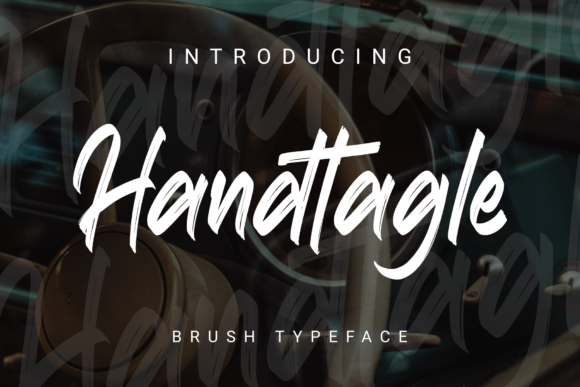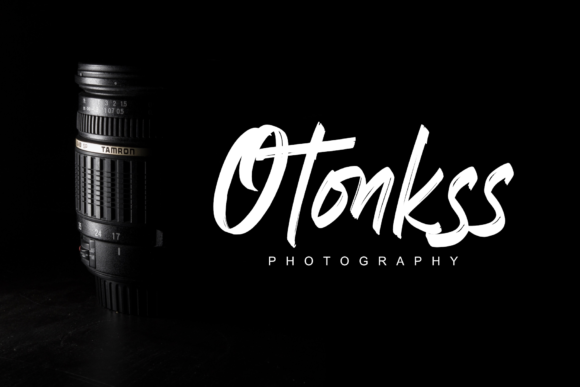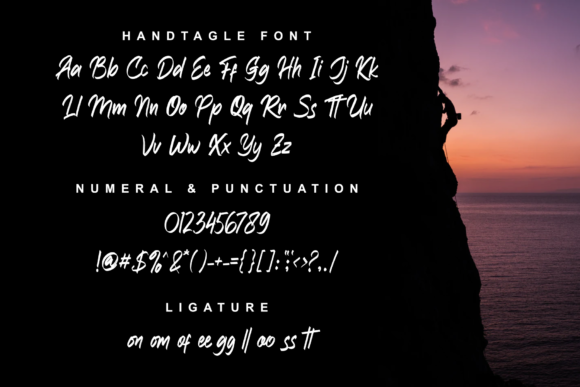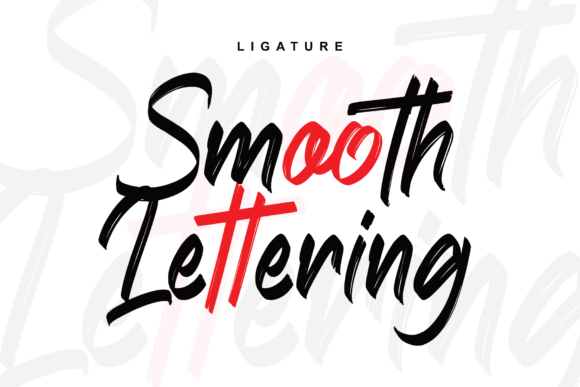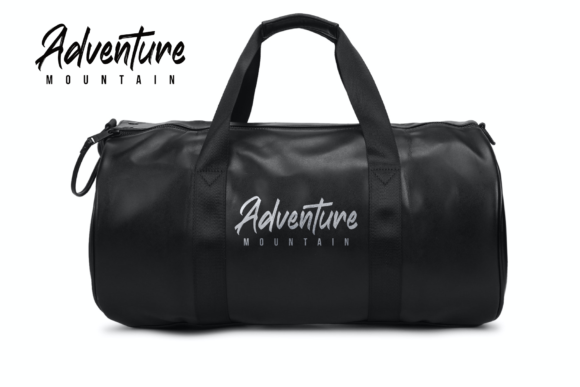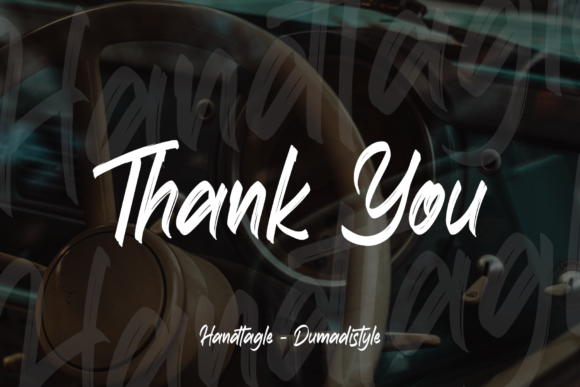
Handtagle Font
About Handtagle Font
Introducing “Handtagle,” a cool and brushed handwritten font that brings a touch of personalization and style to your designs. With its unique and distinctive look, this font is perfect for a wide range of creative projects, including wedding invitations, thank you cards, greeting cards, logos, and more.
The brushed texture of “Handtagle” adds a natural and organic feel to your designs. Each letter is carefully crafted with brush strokes, creating a sense of authenticity and handmade charm. The irregularity and variation in the strokes give this font a dynamic and lively appearance, making it stand out from traditional fonts.
One of the key strengths of “Handtagle” is its versatility. It can be used in various design contexts, from elegant and formal wedding invitations to playful and whimsical greeting cards. Its cool and brushed style adds a personalized touch, allowing you to create designs that reflect the unique personality and style of your project.
For wedding invitations, “Handtagle” brings a romantic and intimate feel. The brushed letters exude warmth and elegance, setting the tone for a special and memorable event. It adds a personalized and handwritten touch that perfectly complements the celebration of love and union.
In thank you cards and greeting cards, “Handtagle” adds a sense of authenticity and sincerity. The brush strokes create a warm and friendly atmosphere, conveying heartfelt appreciation or well wishes. It allows you to connect with your recipients on a more personal level, making your messages even more meaningful.
When used in logos, “Handtagle” gives your brand a unique and handcrafted identity. Its cool and brushed style sets your brand apart, conveying a sense of creativity and individuality. Whether you’re starting a small business or refreshing your brand image, this font helps you create a distinct and memorable logo that captures attention.
Incorporating “Handtagle” into your designs is a surefire way to add a personalized and stylish touch. Its cool and brushed handwritten style brings a sense of authenticity and charm to any project. Whether you’re designing wedding invitations, thank you cards, greeting cards, or logos, this font will make your designs stand out.
Embrace the beauty and versatility of “Handtagle” and let it elevate your creative projects. Its cool brushed style adds a personalized and unique touch that captivates your audience. Unlock the potential of this font and watch your designs come to life with a cool and stylish vibe.